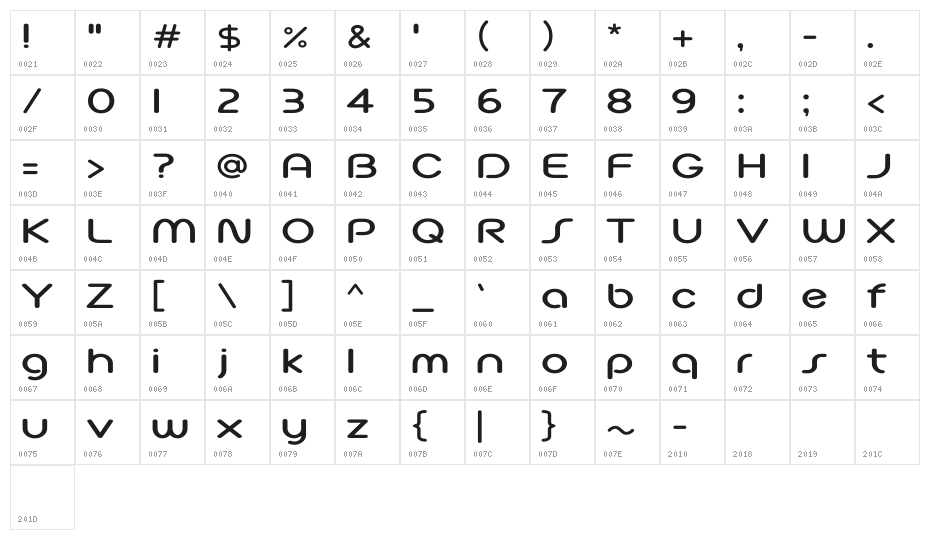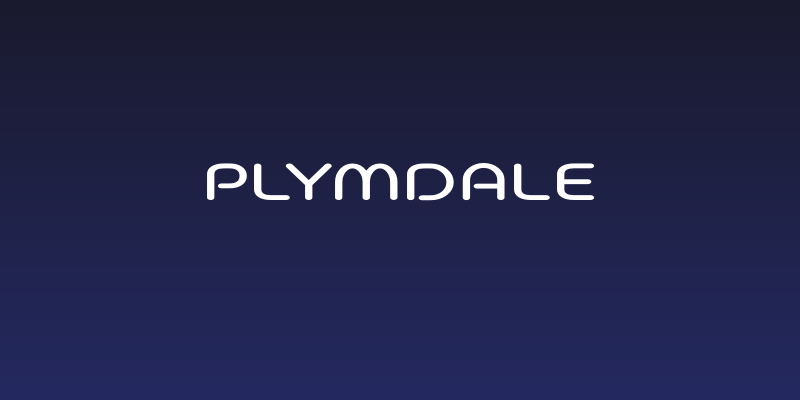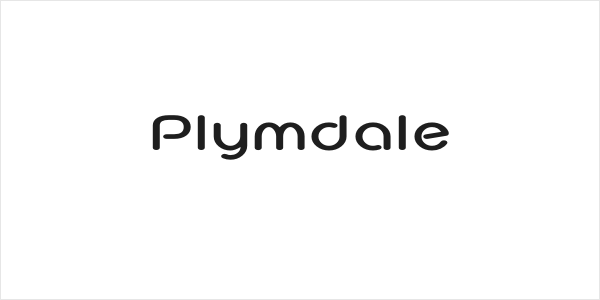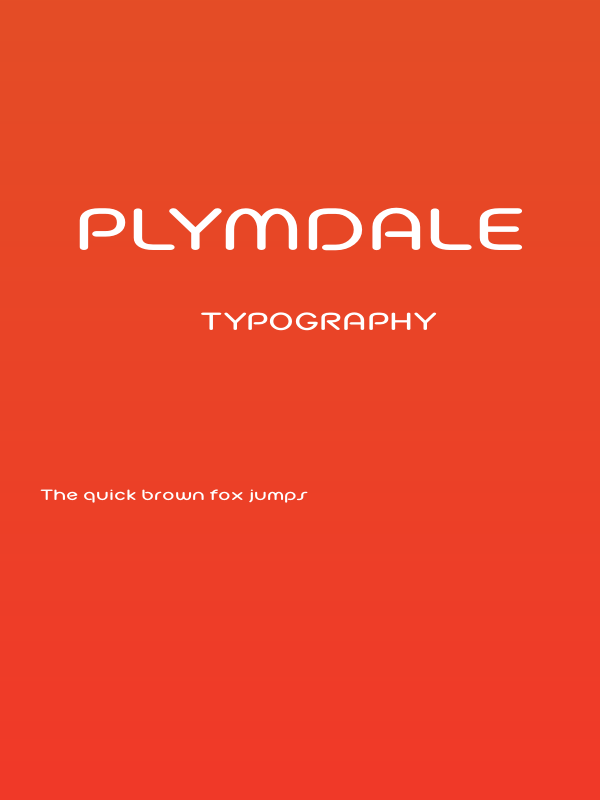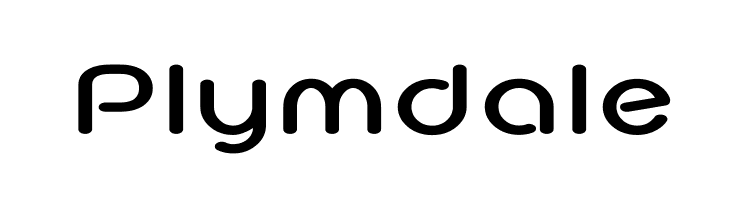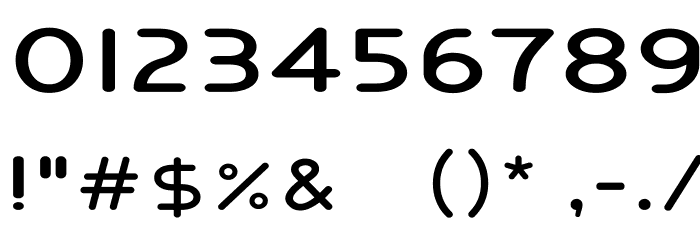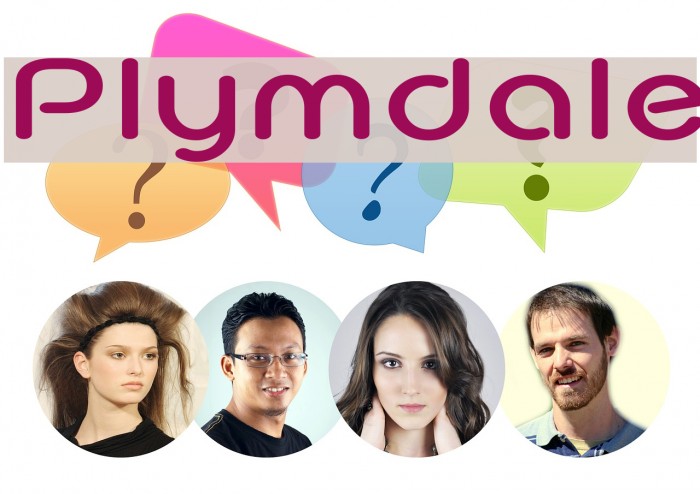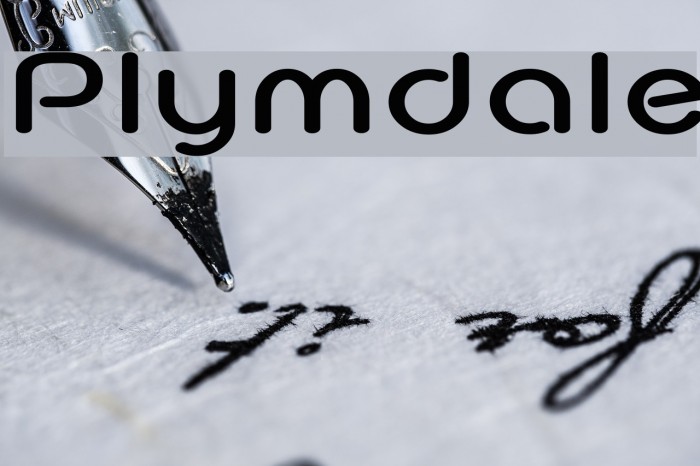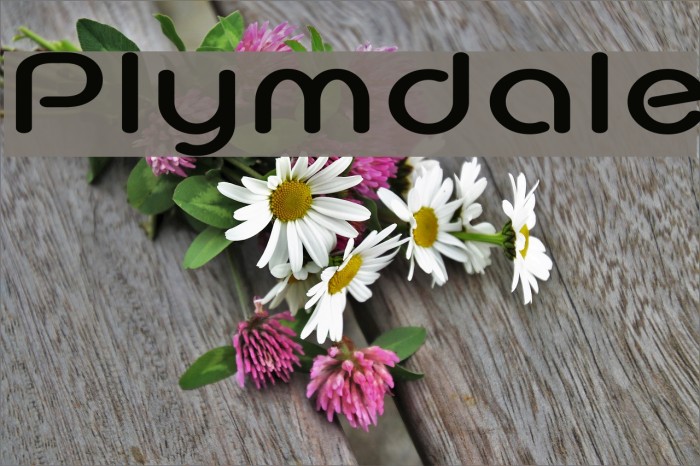
Plymdale Font
Plymdale Description
This font features a modern, rounded sans-serif style with smooth curves and a clean appearance. The characters are evenly spaced, providing a balanced and harmonious look. The uppercase letters have a consistent height, while the lowercase letters maintain a uniform baseline, enhancing readability. The numerals are distinct and easy to distinguish, making them suitable for various applications. The special characters are well-integrated, maintaining the overall aesthetic of the font. Its simplicity and clarity make it versatile for both digital and print media.
PLYMDALE UPPERCASE
PLYMDALE LOWERCASE
PLYMDALE OTHER CHARS